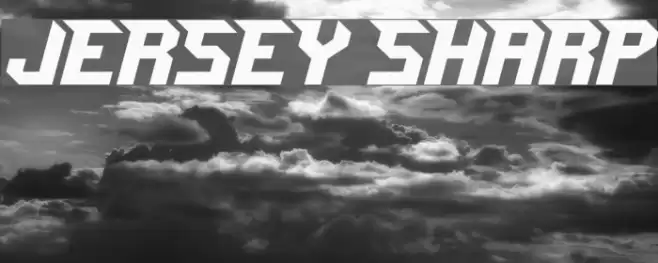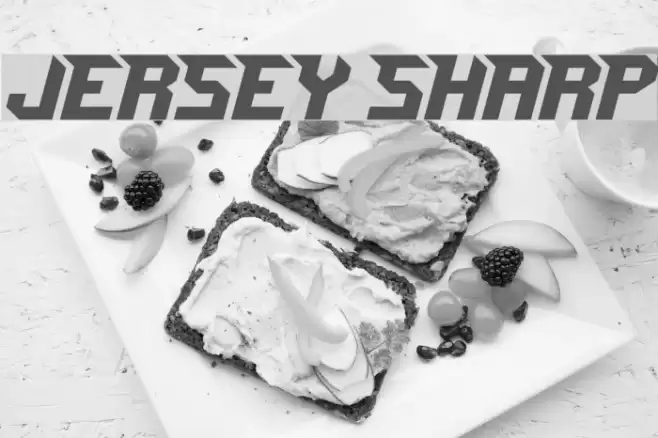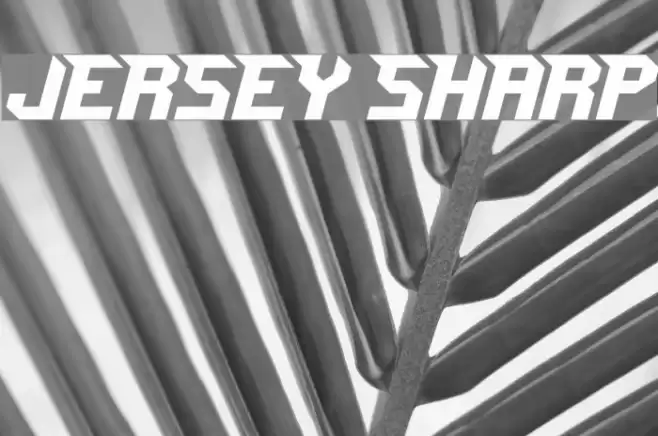
Jersey Sharp Font
Jersey Sharp Description
This font features a bold, angular design with sharp edges and a dynamic, sporty appearance. The characters are slanted, giving a sense of motion and energy, reminiscent of athletic jerseys or team logos. The uppercase and lowercase letters maintain a consistent style, with strong geometric shapes and a slightly condensed form. Numbers and special characters follow the same bold and angular theme, ensuring a cohesive look across all text elements. The font's distinct style makes it ideal for projects that require a strong, impactful visual presence.
| Proposed Projects | Ideal for sports team branding, athletic apparel, event posters, and dynamic logo designs. |